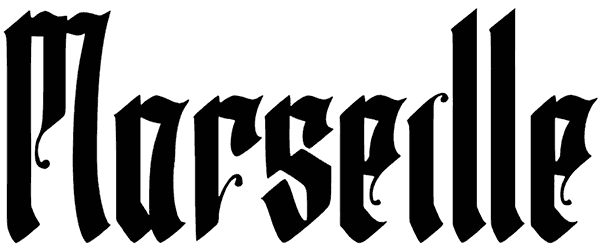
Marseille Font
Marseille is a modern gothic font that offers tall, pointy black letters that give your typography an elegant feel! This specific font is best for expressing your message and gaining attention with its dark, terrifying, and powerful design.
The stunning characters have spurs and are jagged, they look decorative and very attractive. Places that Marseille fits well and you might want to add it, are branding, logo, cards, clothing, and a book, or wherever you wish for a newer gothic style.